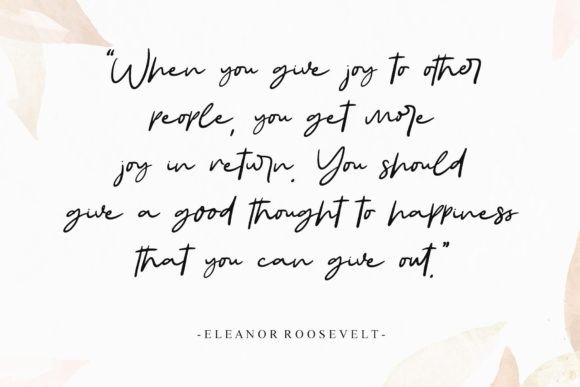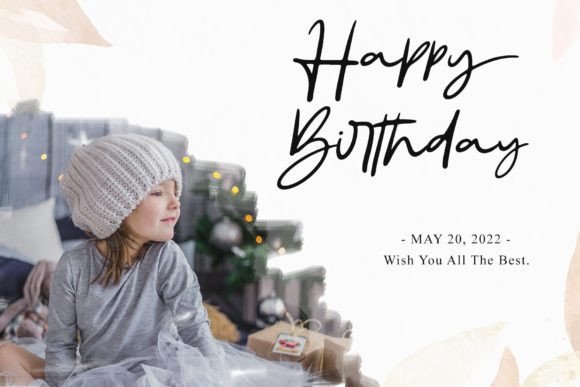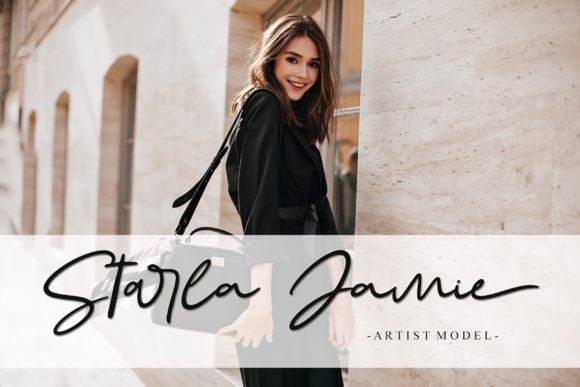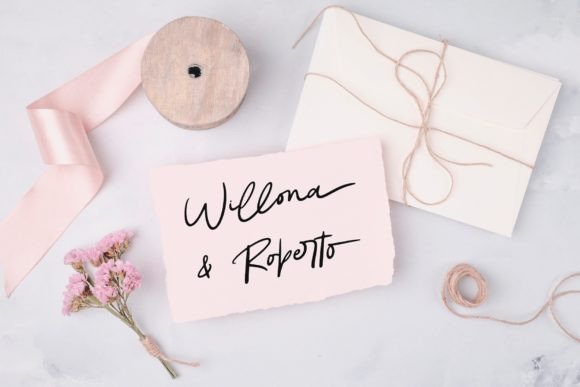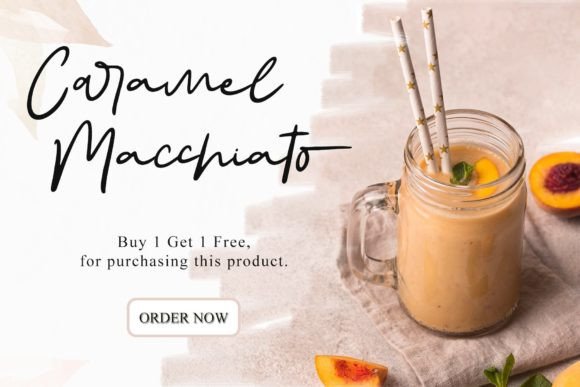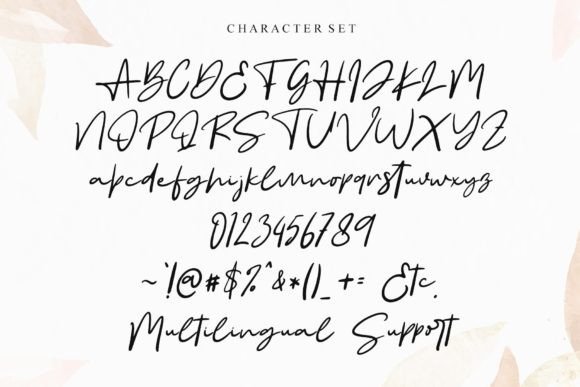
The Aaron Ramsey Font: A Designer’s New Best Friend
I’ll never forget the time I was working on a wedding invitation project, and my client asked for a font that was both elegant and quirky. I scoured the internet, trying out font after font, but nothing seemed quite right. That was until I stumbled upon the Aaron Ramsey Font. This beautiful, handwritten font has been a game-changer for my design projects, and I’m excited to share it with you!
So, what makes the Aaron Ramsey Font so special? Here are a few things I love:
- ✨ Unique and quirky look: This font has a one-of-a-kind personality that’s perfect for designers who want to stand out.
- ✅ Elegant and modern feel: Despite its quirky vibe, the Aaron Ramsey Font has a sophisticated, high-end feel that’s perfect for luxury brands and wedding designs.
- 💻 PUA encoded for easy access: This font is encoded with PUA (Private Use Area) characters, making it easy to access all the glyphs and swashes.
- 🤔 Limited multilingual support: While the Aaron Ramsey Font is a beautiful addition to any design project, it may not be the best choice for projects that require extensive multilingual support.
- ⚠️ Some users may find it too ornate: Depending on the design project, some users may find the Aaron Ramsey Font too ornate or over-the-top.
The Story Behind the Aaron Ramsey Font
The Aaron Ramsey Font is named after the famous Welsh footballer Aaron Ramsey. According to the font’s designer, the font was inspired by Ramsey’s charming personality and elegant playing style. The font’s unique blend of quirky and elegant features makes it perfect for designers who want to add a touch of personality to their projects.
- Q: What is the Aaron Ramsey Font?
- A: The Aaron Ramsey Font is a simple and quirky-looking handwritten font with a classy, elegant, and modern look.
- Q: Is the Aaron Ramsey Font PUA encoded?
- A: Yes, the Aaron Ramsey Font is PUA encoded, making it easy to access all the glyphs and swashes.